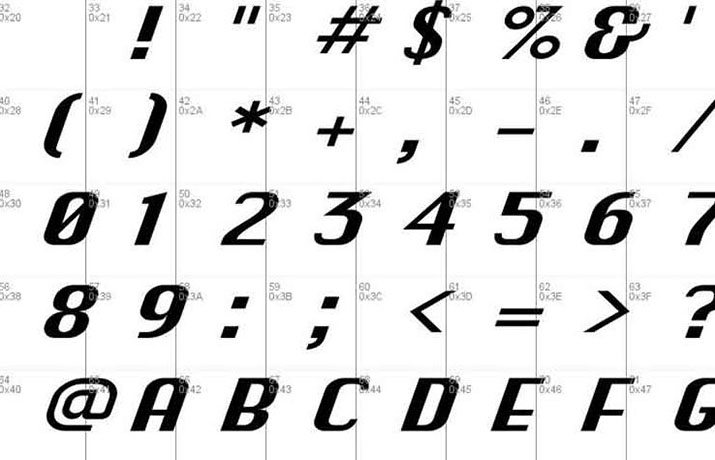
J-phont Font is a fancy sans serif typeface that has a clean and modern look. It was designed and published in 2004 by someshinzz.
All its textures are clean and decent, created with small decorative strokes at the ends of letters. Also, it features wide proportions, tight counters, and sharp letterforms.
Due to this aspect, you can surely create basic designs as well as stylish designs. So, try it out for social media posters, headers, titles, banners, flyers, signs, and advertisements.
- This typeface can be used for headings, titles, banners, signs, labels, cards, documents, T-shirt designs, presentations, assignments, novels, book covers, newspapers, printing functions, logos, posters, banners, magazines, book covers, social media posters, flyers, headers, titles, banners, signs, labels, and presentations.
- However, it may also be used for constructing websites, social media flyers, signs, headers, titles, banners, apps, and games.